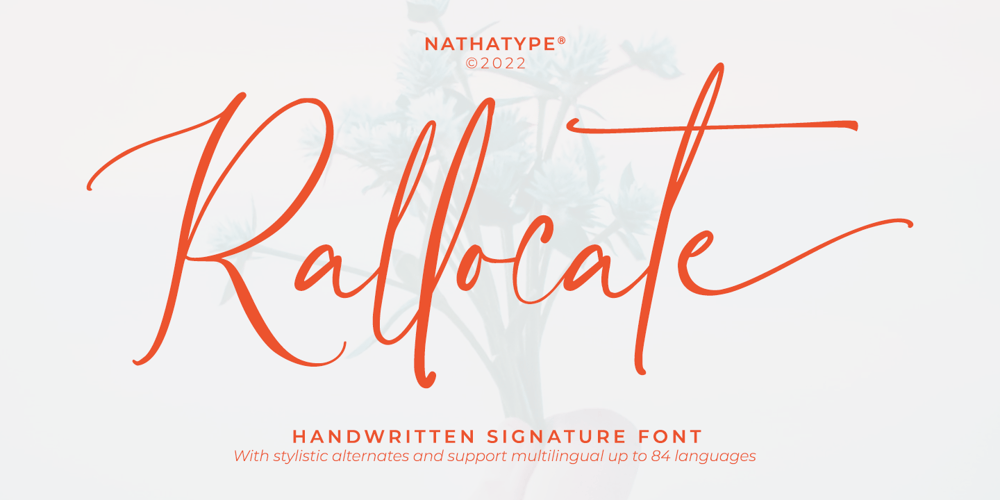
Rallocate Font Family was designed by Donis Miftahudin and published by Nathatype. Rallocate contains 1 styles and family package options. Need help with your design?Expect nothing but brilliance for your design. It’s a perfect way to maximize your productivity and enjoy the comfort of designing process at its best. Meet Rallocate, a wonderful script font that looks like signature, with beautifully contrasting thick and thin strokes. Each letter looks neat and carries some elegance. This font will look equally good in the header or smaller text. In addition, it has more fascinating features to create your amazing design.Features: Stylistic Sets Ligatures Multilingual Supports Numerals and Punctuations PUA Encoded It is perfect to be used for many design projects, such as poster, logo, book cover, branding, heading, printed product, merchandise, quotes, social media campaign, etc. Learn more about how to use it by seeing the font preview.Thank you for purchasing our fonts. Please don’t hesitate to contact us, if you have any further question or issues. We’re happy to help. Happy Designing.